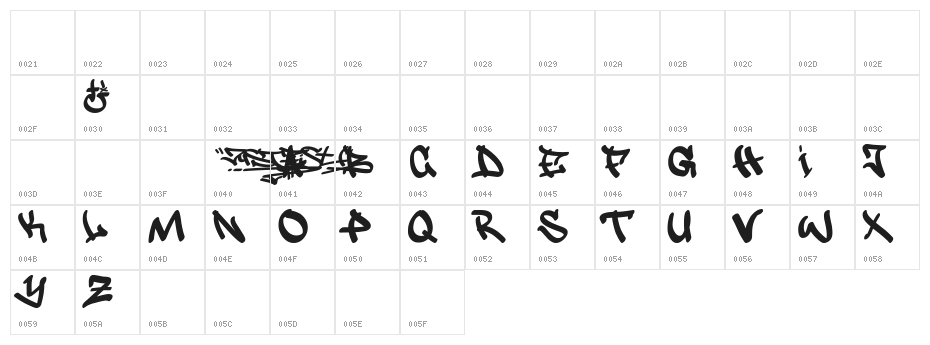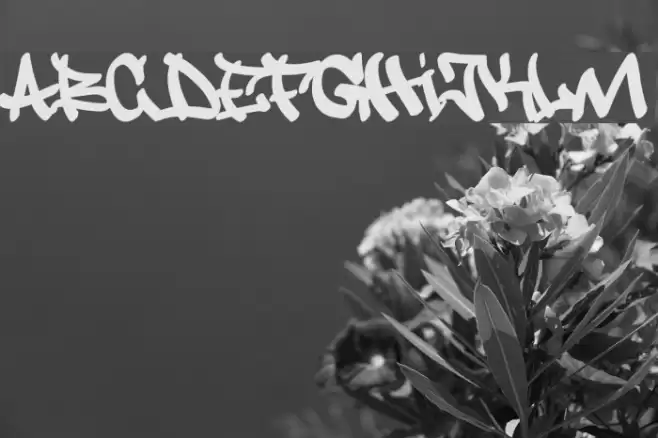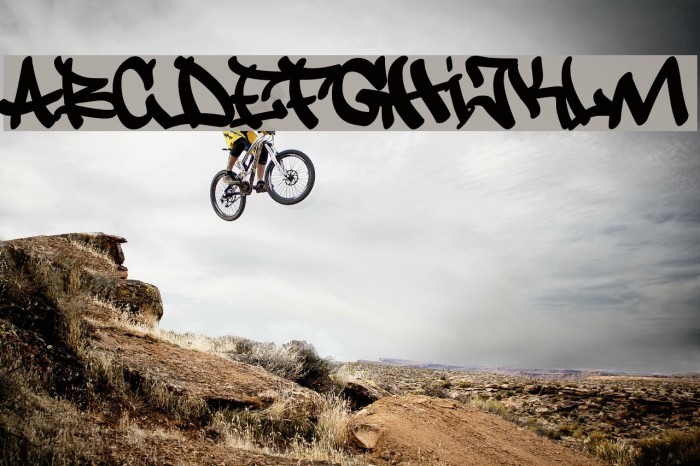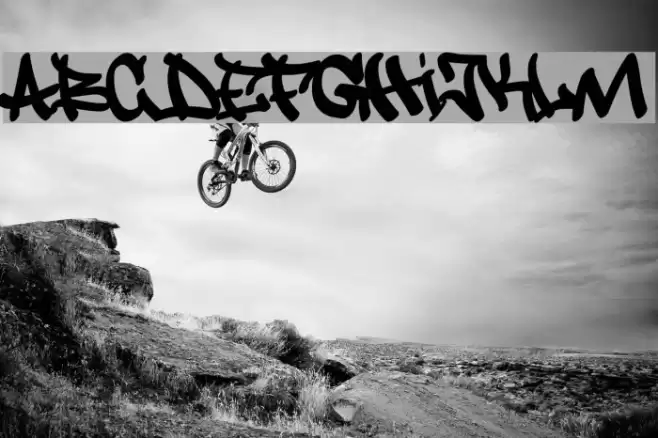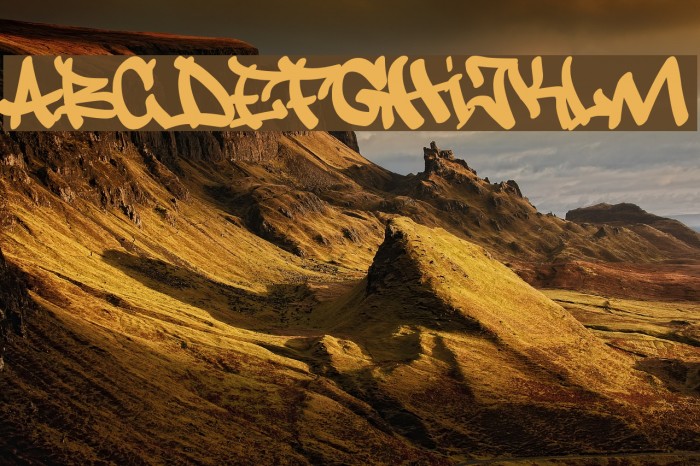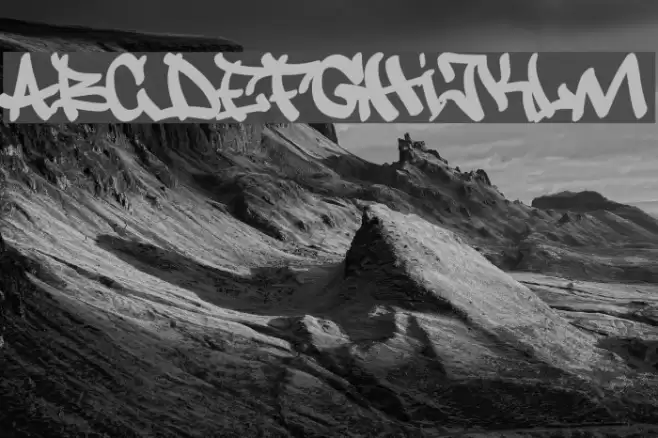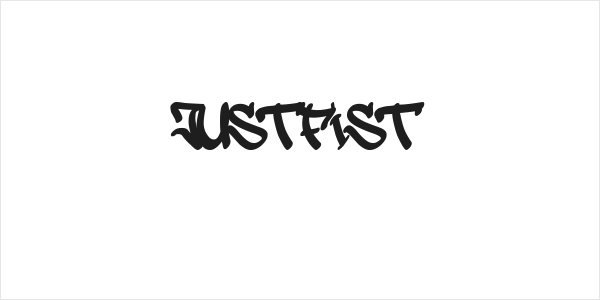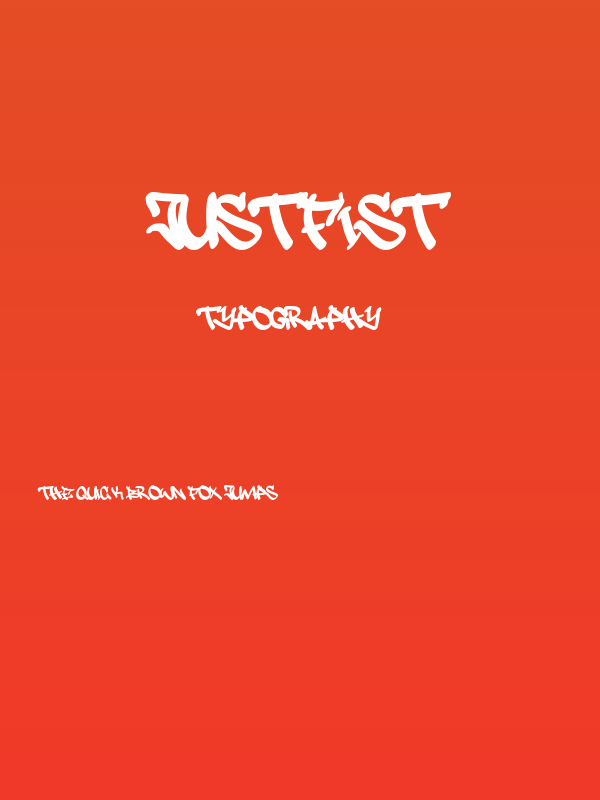
justfist Font
justfist Description
This font exhibits a bold, graffiti-inspired style with a dynamic and energetic appearance. The letters are characterized by thick strokes and a hand-drawn aesthetic, giving it a rebellious and urban feel. The uppercase and lowercase letters maintain a consistent style, with exaggerated curves and sharp angles that create a sense of movement. The numbers and special characters follow the same design principles, ensuring a cohesive look across all elements. This font is ideal for projects that aim to capture a street art vibe or convey a sense of boldness and creativity.
JUSTFIST UPPERCASE
JUSTFIST LOWERCASE
JUSTFIST OTHER CHARS
| Overall Style | Urban, Graffiti, Bold |
| Use Case | Logos, Posters, Album covers |
| Proposed Projects | Perfect for street art designs, urban-themed posters, music album covers, and edgy branding projects. |